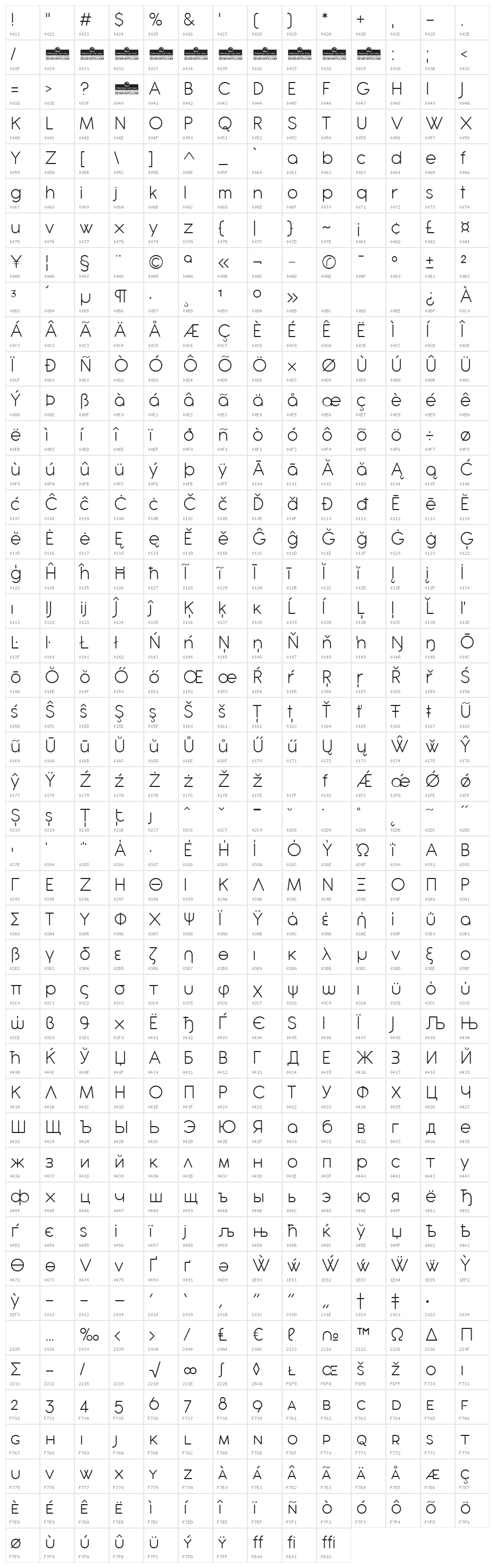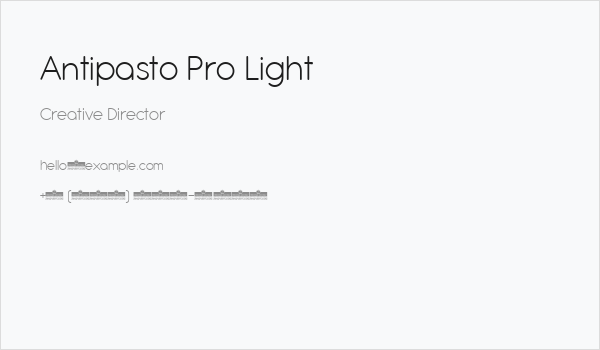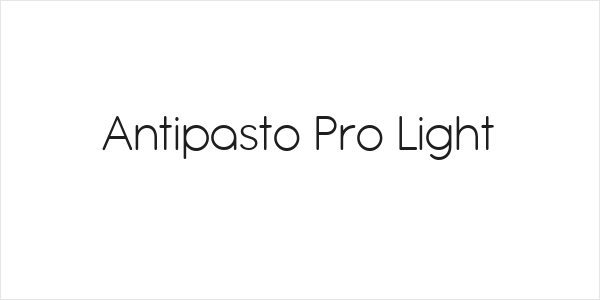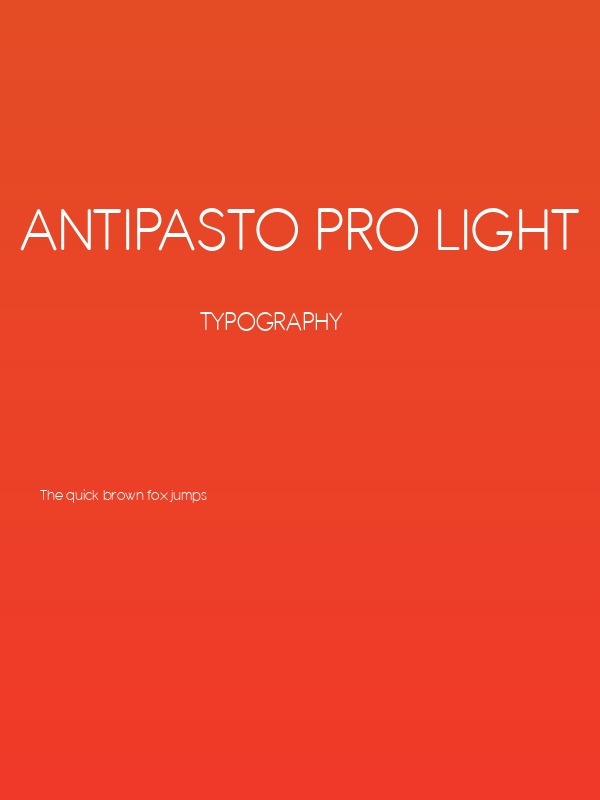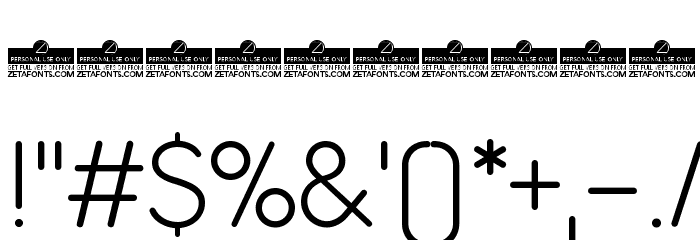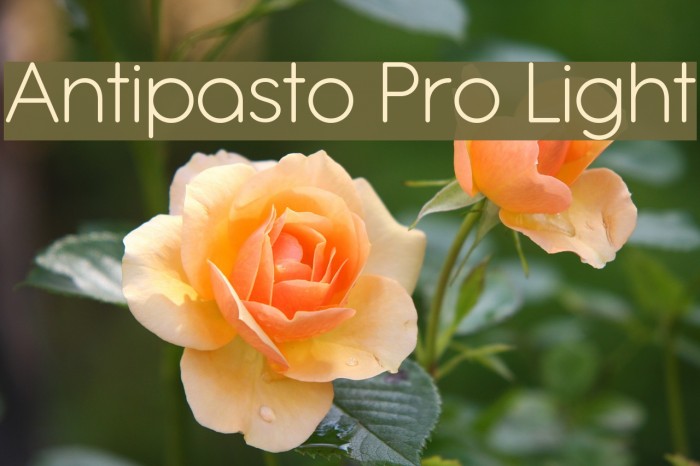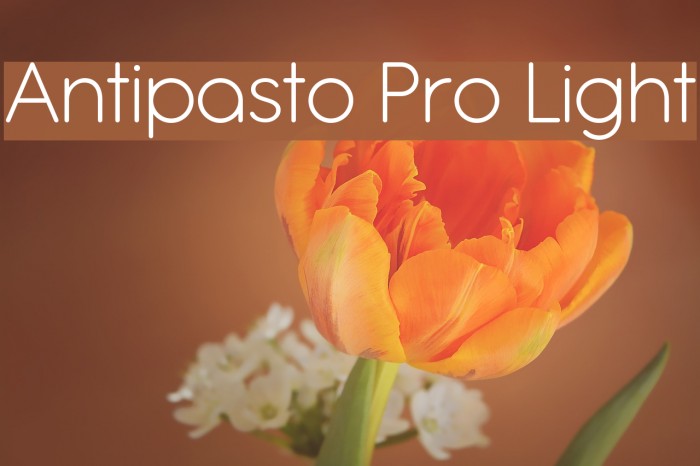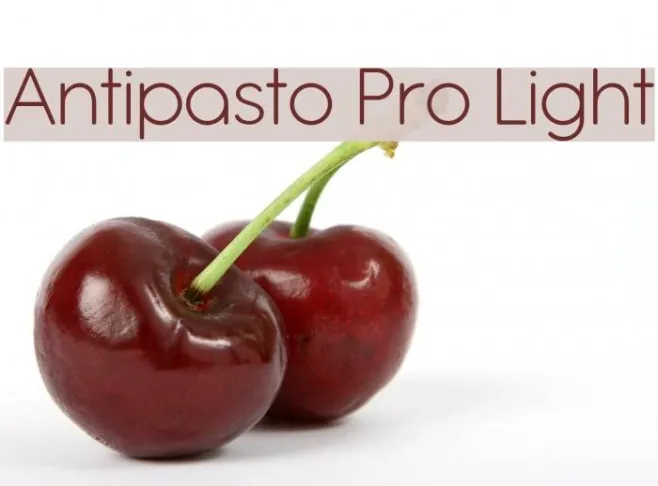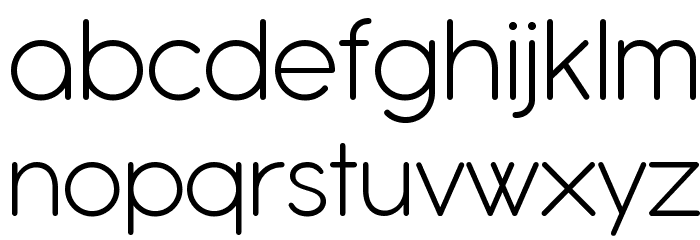
Antipasto Pro Light Font
Antipasto Pro Light Description
This font exhibits a clean and modern aesthetic with smooth, rounded edges and a uniform stroke width. The characters are evenly spaced, contributing to a harmonious and balanced appearance. Its simplicity and clarity make it highly legible, even at smaller sizes. The design is minimalistic, with a contemporary feel that is versatile for various applications. The lowercase letters maintain a consistent height, while the uppercase letters are slightly taller, providing a subtle contrast. The numerals and special characters are designed to match the overall style, ensuring a cohesive look across all text elements.
| Proposed Projects | Ideal for branding, web design, advertising, and editorial projects where clarity and modernity are desired. |